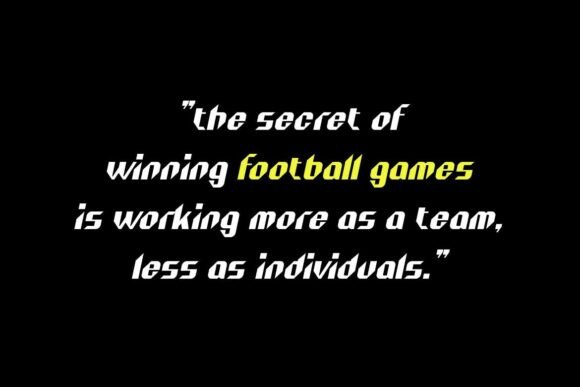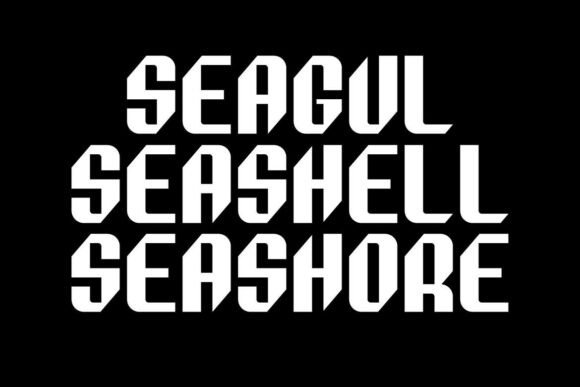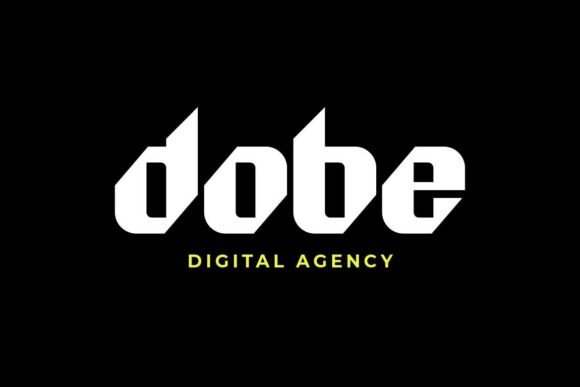
Introduction to Crone Font
Remember that moment when you finally land the perfect design concept for your client, and everything comes together in perfect harmony? That rush of excitement and satisfaction is what makes being a designer so rewarding. And, let’s be honest, a bold and eye-catching font can make all the difference in grabbing attention and leaving a lasting impression.
That’s exactly what Crone Font is all about – creating a dynamic visual statement that demands attention. This high-quality display typeface is designed to stand out in a crowded space, whether it’s on a jersey, team logo, esports graphic, or promotional campaign. With its strong letterforms and solid weight, Crone Font is the perfect design resource for any creative project.
Key Features of Crone Font
- Includes a range of characters, including uppercase and lowercase letters, numbers, and punctuation
- Designed with a unique, modern aesthetic that sets it apart from other fonts
Honest Review: Crone Font
I recently stumbled upon the Crone Font while searching for a unique design resource for my latest creative project. As a designer, I appreciate high-quality fonts that can elevate my work, and I was excited to give this one a try.
What works well with Crone Font is its versatility and range of styles. The font family offers a variety of weights and scripts, making it perfect for both print and digital designs. I particularly enjoyed working with the font’s more intricate details, which added a touch of elegance to my design.
Here are some of the key features that stood out to me:
- High-quality design with intricate details
However, I did encounter some limitations with the font. At times, it can be a bit difficult to read, especially in smaller sizes. Additionally, the font may not be suitable for designs that require a more straightforward, sans-serif look.
⚠️ Despite these limitations, I would still recommend Crone Font to designers looking for a unique and high-quality design resource. With a little experimentation and creativity, it can be a valuable addition to your design toolkit.
Crone Font is a versatile font that can be used in a variety of creative projects, including graphic design, digital art, and publishing. Some common use cases include:
- Creating eye-catching headings and titles
- Designing logos and brand identities
- Creating graphics and illustrations for social media